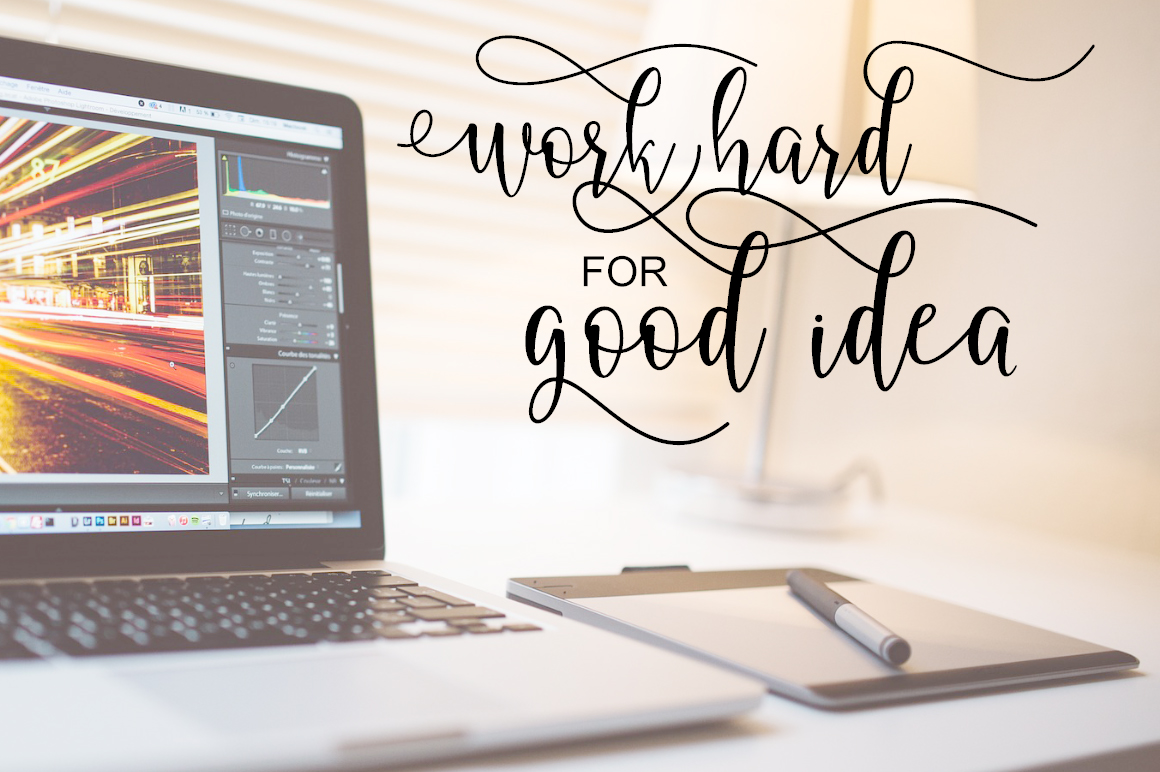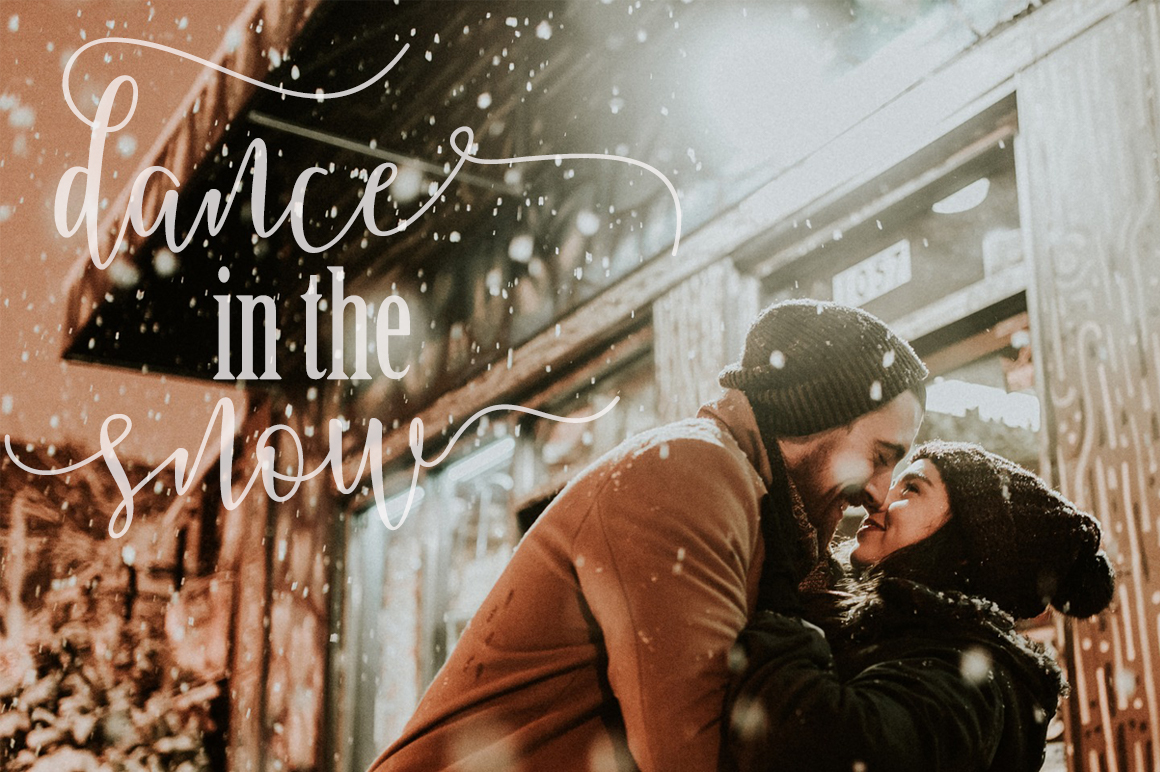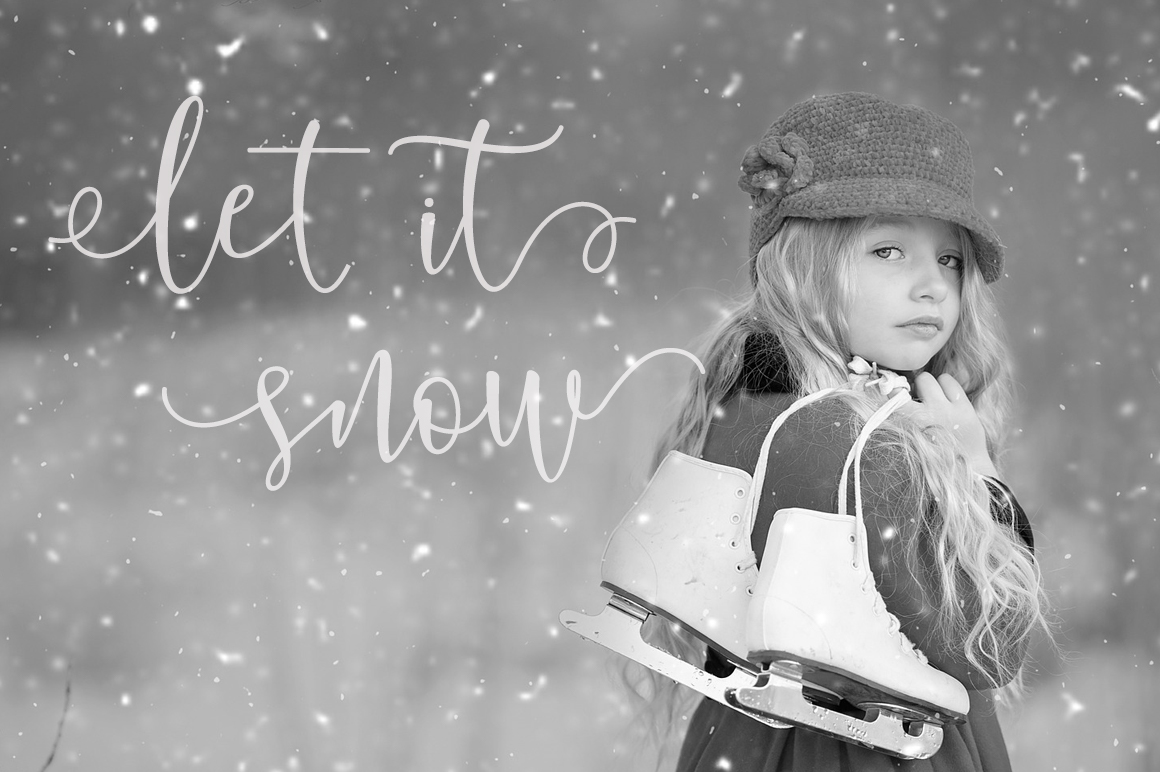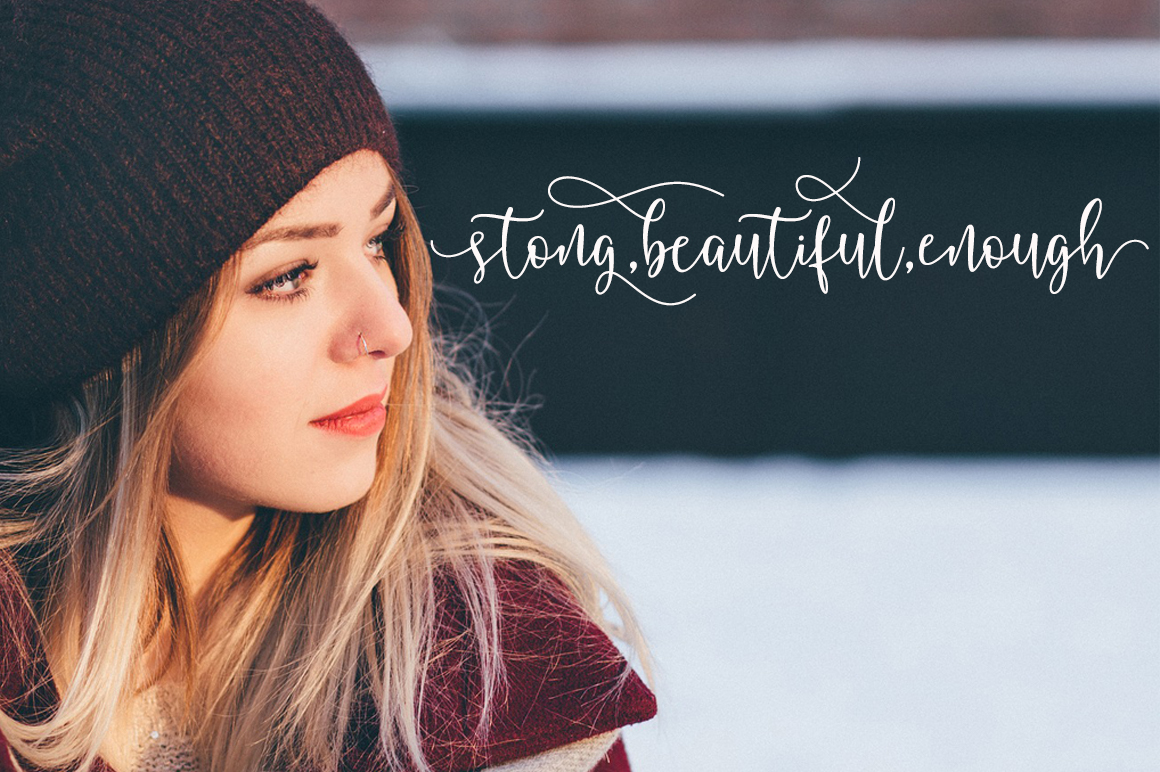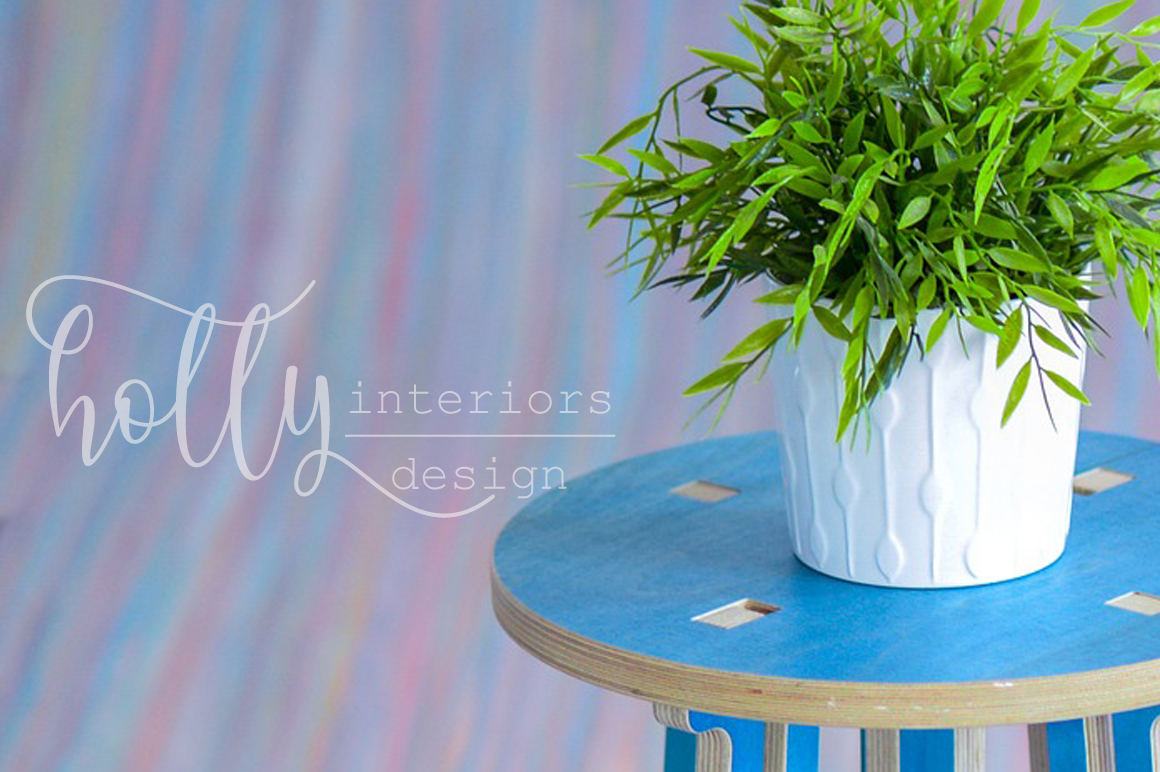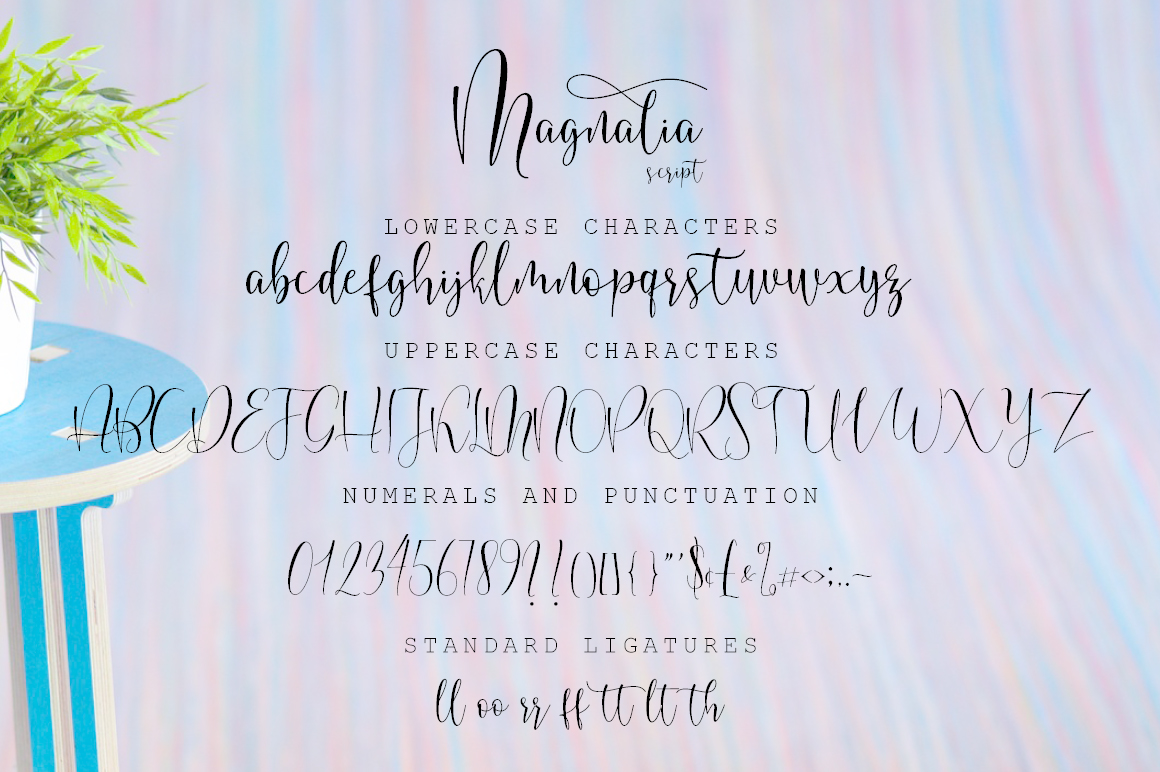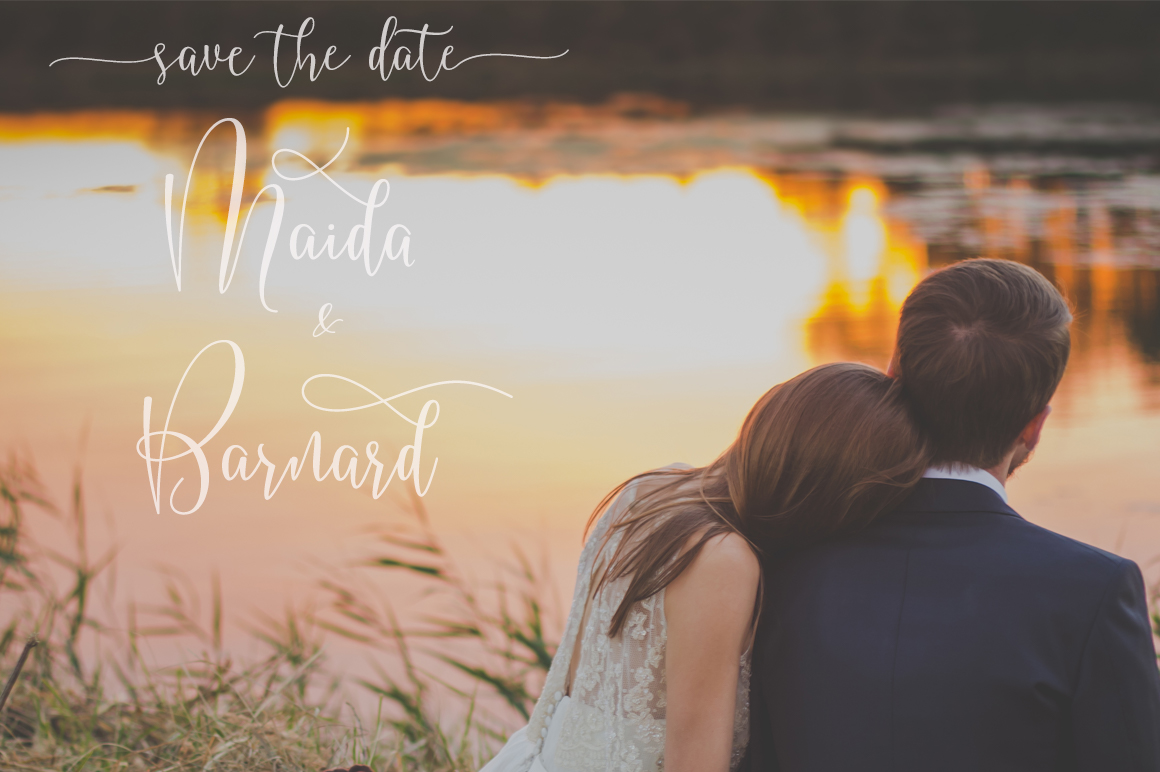
Magnalia Font
About Magnalia Font
Magnalia is a beautiful script font, perfect for a large array of designs and creative projects. This is an embellished and modern script with tons of potential.